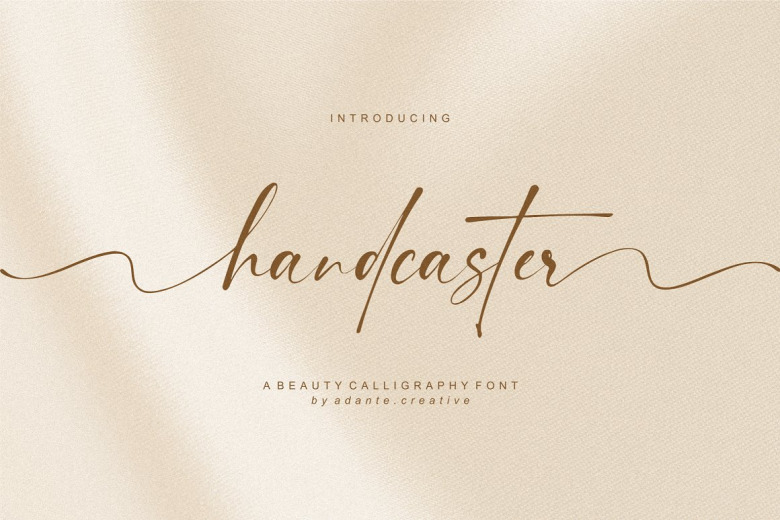
Handcaster Font
Handcaster is a beauty script calligraphy font. Handcaster is perfect for product packaging, branding project, magazine, social media, wedding, or just used to express words above the background. This font is PUA encoded which means you can access all of the glyphs and swashes with ease!
Handcaster Calligraphy Script Font